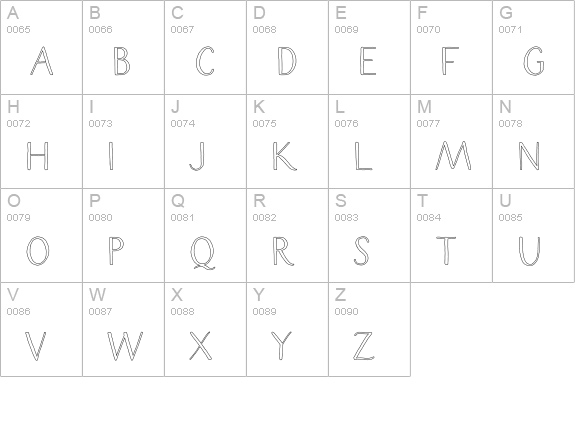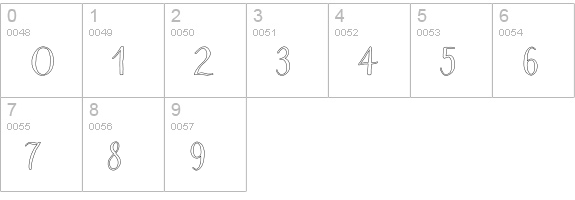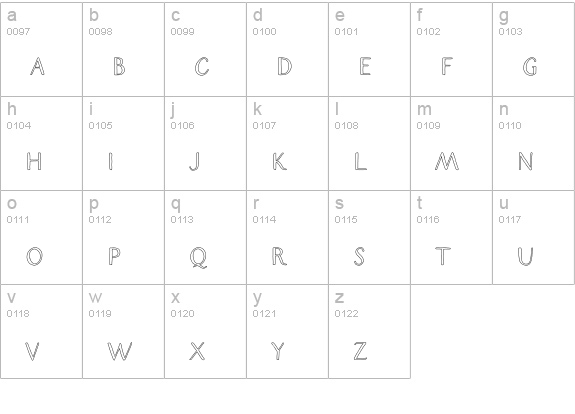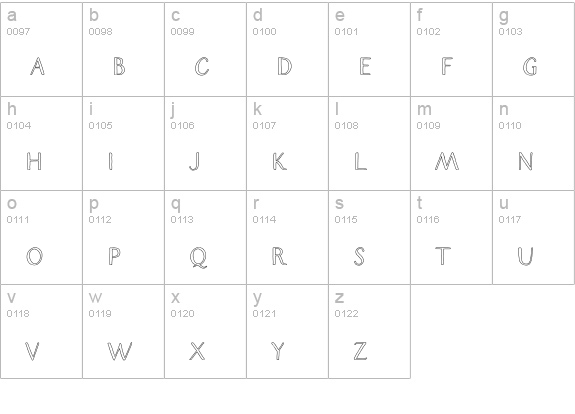
Salt & Spices Pro SC 3 Font Details
Salt & Spices Pro SC 3 font is a versatile and elegant typeface that is perfect for adding a touch of sophistication to your designs. With its delicate curves and refined details, this font exudes a sense of timeless beauty and charm. Whether you are working on a branding project, a wedding invitation, or a social media post, Salt & Spices Pro SC 3 font will elevate your design to the next level. The best part is that Salt & Spices Pro SC 3 font is available for free download at FontsMarket.com. This means that you can easily access this premium font without any cost, making it a valuable addition to your font collection. Don't miss out on the opportunity to enhance your creative projects with the exquisite beauty of Salt & Spices Pro SC 3 font. Download it today and start creating stunning designs that stand out from the rest.